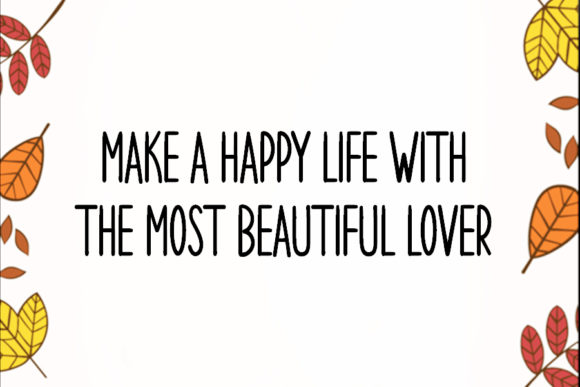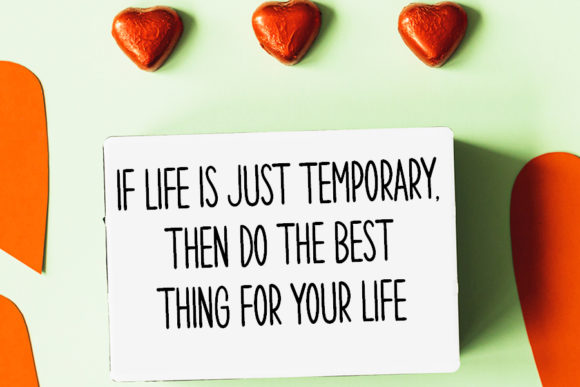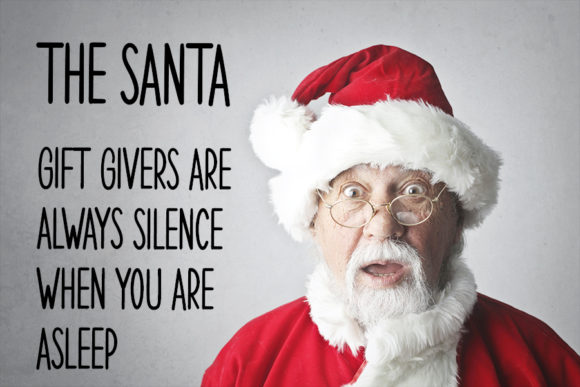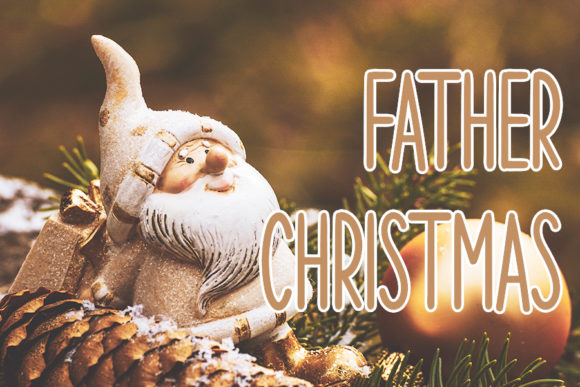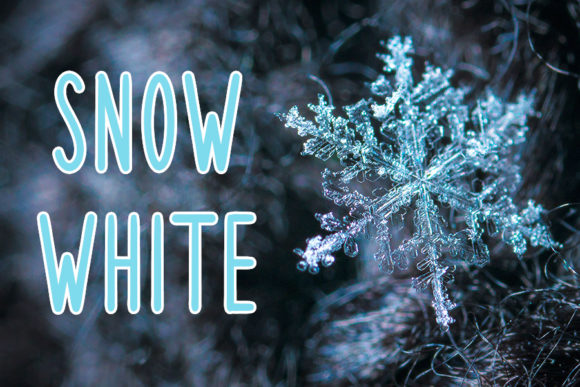
Christmas Day Font
About Christmas Day Font
Christmas Day is a sweet and clean handwritten font. Its natural and modern style makes it incredibly fitting for a large pool of designs.